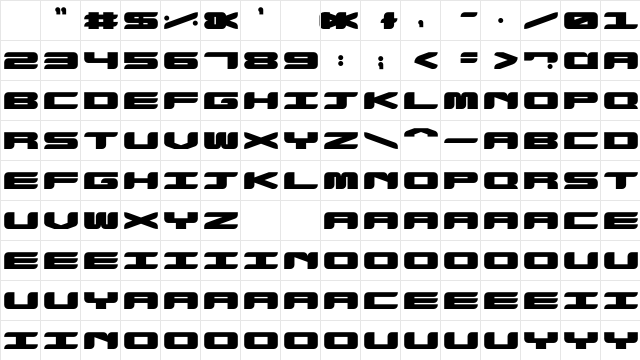
Complete Panoptic Monospace Bold glyph index. Displaying only characters natively supported by Panoptic Monospace Bold font.
Panoptic Monospace uses fixed-width spacing throughout, giving it the structured, systematic character associated with coding environments and technical documentation. Its bold stroke weight gives it real presence on the page.